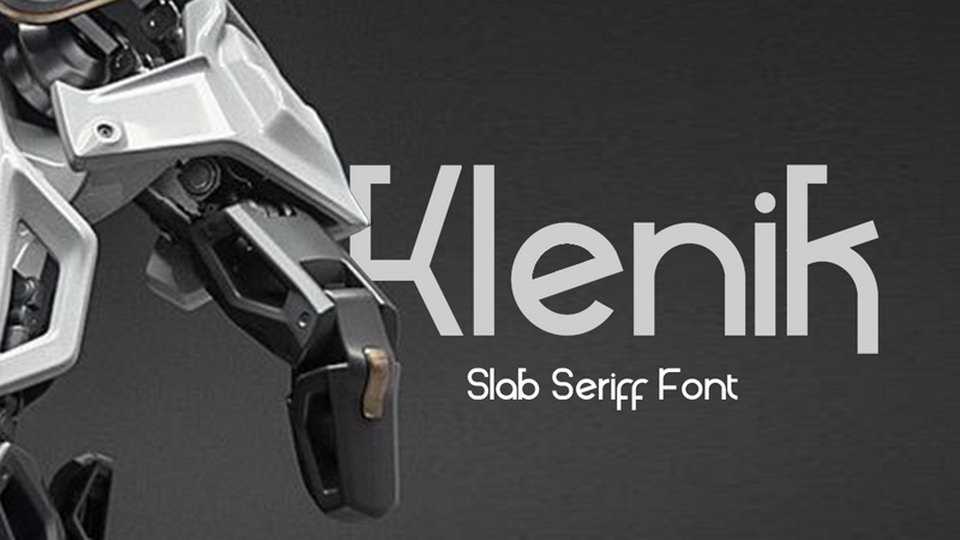
Download Klenik font, a geomertic slab serif typefac, based on the combining a variety of styles. It is suitable for logo, greeting cards, quotes, posters, branding, name card, stationary, design title, blog header, art quote, typography.